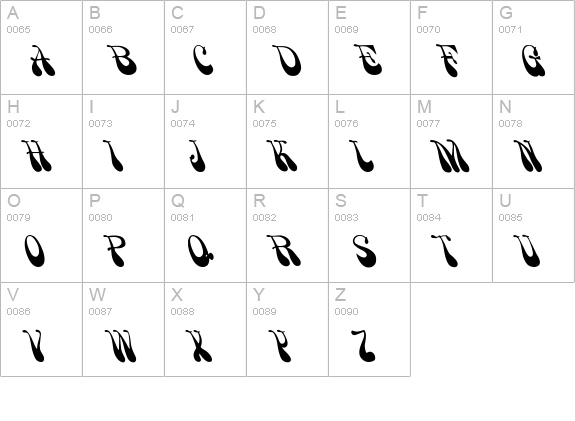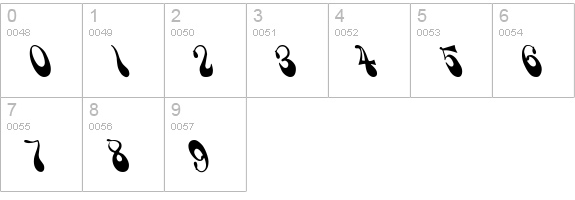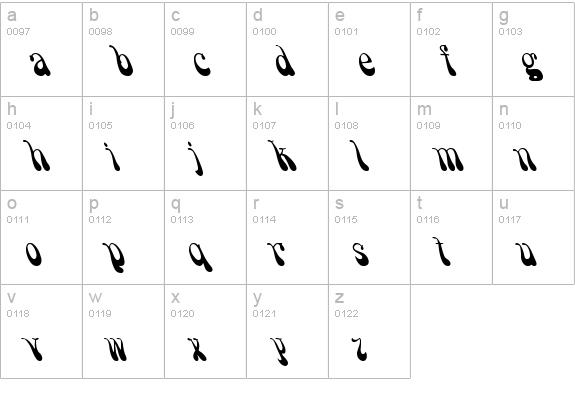
Grooovvelic Font Details
Introducing Grooovvelic font, a stylish and modern typeface that is sure to make your designs stand out! This unique font features sleek lines and a contemporary feel, making it perfect for a wide range of projects. Whether you're designing a logo, creating branding materials, or working on a website, Grooovvelic font is the perfect choice to add a touch of sophistication to your work. The best part? Grooovvelic font is available for free download at FontsMarket.com! That's right, you can easily access this stunning font and use it in your projects without any cost. So why wait? Elevate your designs with Grooovvelic font today and make a lasting impression!